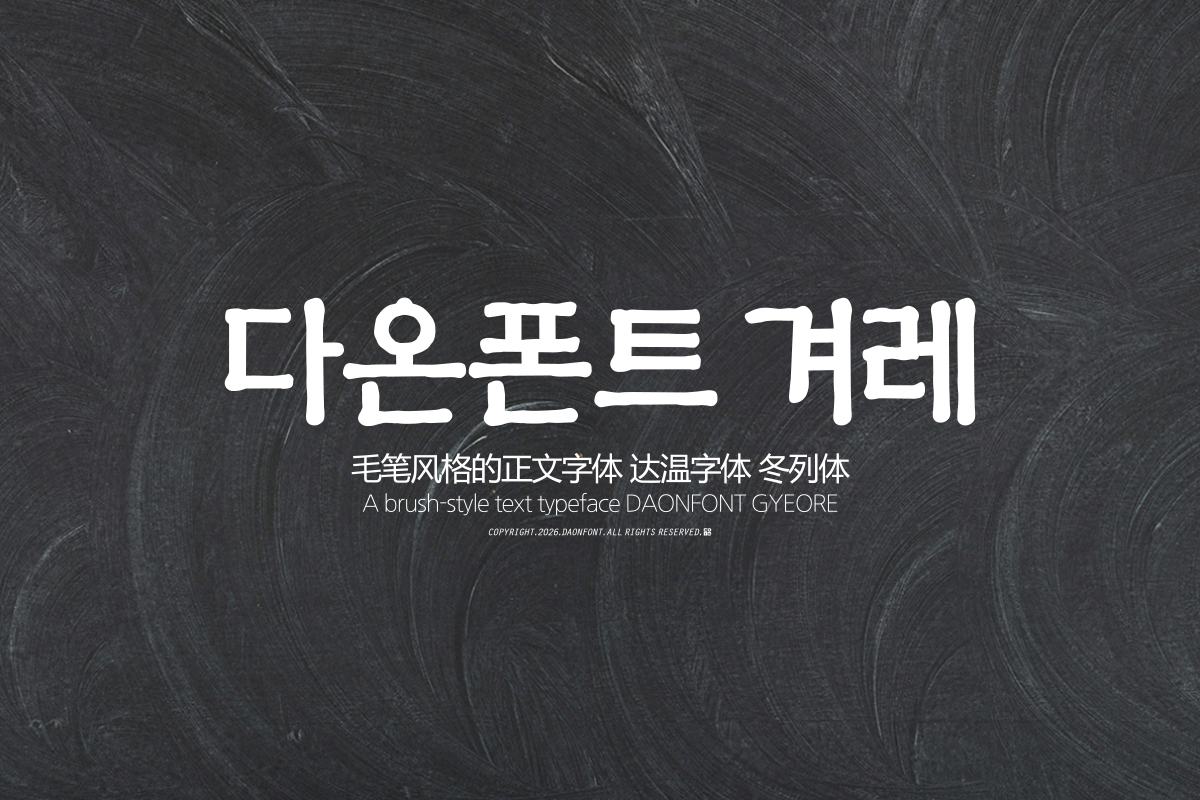
DAON GYEOLE GULGEUN
DaonFont 'GYEOLE' is a brushstroke-style Hangul typeface that captures the power and solid impression of the Korean alphabet. Designed with a focus on a clear and powerful structure, it imbues each character with solid balance and stability, much like the symbolism of its name, enabling the clear and strong delivery of messages.